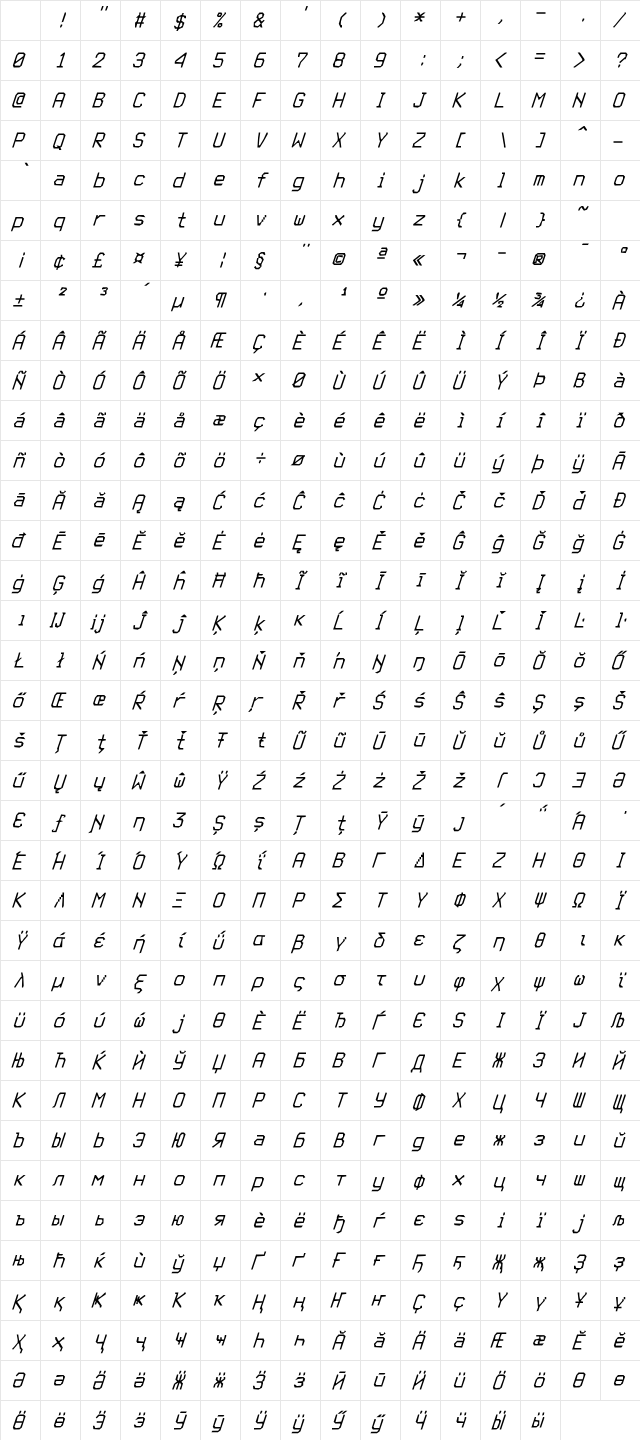
TerminessTTF NF Italic
Complete TerminessTTF NF Italic glyph index. Displaying only characters natively supported by TerminessTTF NF Italic font.
Design Context for TerminessTTF NF
TerminessTTF NF is a composed and adaptable typeface that performs quietly and consistently across a wide range of design contexts. The slanted form adds forward momentum and visual energy.